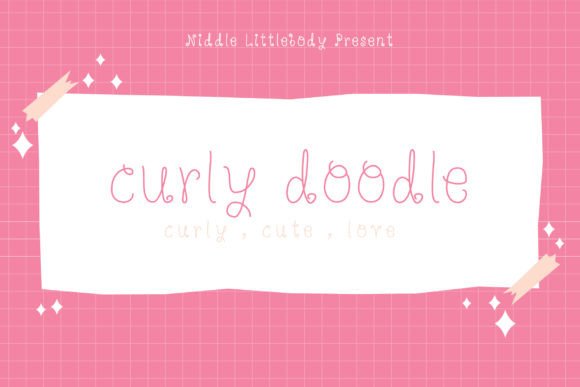
Introducing Curlydoodle Font: The Perfect Handwritten Font for Lovely Quotes and Valentine’s Day Materials
Are you looking for a font that can add a personal and realistic touch to your designs? Look no further than Curlydoodle Font! This simple handwritten font is perfect for creating lovely quotes, Valentine’s Day materials, and more. In this article, we’ll take a closer look at Curlydoodle Font, its features, and how you can use it to elevate your designs.
What is Curlydoodle Font?
Curlydoodle Font is a beautiful, handwritten font that is designed to give your designs a personal and realistic feel. Its authentic look and feel make it perfect for creating a wide range of designs, from lovely quotes to Valentine’s Day materials. Whether you’re a designer, artist, or simply someone who loves to create, Curlydoodle Font is a great addition to your font collection.
Features of Curlydoodle Font
So, what makes Curlydoodle Font so special? Here are just a few of its key features:
- Handwritten look: Curlydoodle Font has a beautiful, handwritten look that is perfect for creating personal and realistic designs.
- Simple and elegant: Despite its handwritten look, Curlydoodle Font is simple and elegant, making it perfect for creating a wide range of designs.
- Perfect for quotes and Valentine’s Day materials: Curlydoodle Font is specifically designed for creating lovely quotes and Valentine’s Day materials, making it a great choice for anyone looking to create romantic or inspirational designs.
Tips for Using Curlydoodle Font
Here are a few tips for getting the most out of Curlydoodle Font:
- Experiment with different sizes and colors: Curlydoodle Font looks great in a variety of sizes and colors, so don’t be afraid to experiment and find the look that works best for your design.
- Use it with other fonts: Curlydoodle Font pairs well with a wide range of other fonts, so feel free to get creative and use it with other fonts to add visual interest to your design.
- Keep it simple: While Curlydoodle Font is perfect for creating complex designs, it can also be used to create simple, elegant designs. Don’t be afraid to keep things simple and let the font speak for itself.
Curlydoodle Font and Valentine’s Day
Valentine’s Day is just around the corner, and Curlydoodle Font is the perfect choice for creating romantic designs. Whether you’re looking to create a Valentine’s Day card, gift tag, or social media post, Curlydoodle Font is sure to add a personal and realistic touch to your design.
Here are a few ideas for using Curlydoodle Font on Valentine’s Day:
- Create a Valentine’s Day card: Use Curlydoodle Font to create a beautiful, handmade-style Valentine’s Day card for your loved one.
- Design a gift tag: Add a personal touch to your Valentine’s Day gift with a custom gift tag created using Curlydoodle Font.
- Make a social media post: Use Curlydoodle Font to create a romantic social media post for Valentine’s Day.
Curlydoodle Font and Quotes
Curlydoodle Font is also perfect for creating lovely quotes. Whether you’re looking to create a inspirational quote, a funny quote, or a romantic quote, Curlydoodle Font is sure to add a personal and realistic touch to your design.
Here are a few ideas for using Curlydoodle Font with quotes:
- Create an inspirational quote: Use Curlydoodle Font to create a beautiful, inspirational quote to hang on your wall or share with friends.
- Make a funny quote: Add some humor to your design with a funny quote created using Curlydoodle Font.
- Design a romantic quote: Use Curlydoodle Font to create a romantic quote for your loved one.
In conclusion, Curlydoodle Font is a beautiful, handwritten font that is perfect for creating lovely quotes, Valentine’s Day materials, and more. Its authentic look and feel make it a great choice for anyone looking to add a personal and realistic touch to their designs. With its ease of use and versatility, Curlydoodle Font is sure to become a favorite in your font collection.
- A: Curlydoodle Font is a beautiful, handwritten font that is perfect for creating lovely quotes, Valentine’s Day materials, and more.